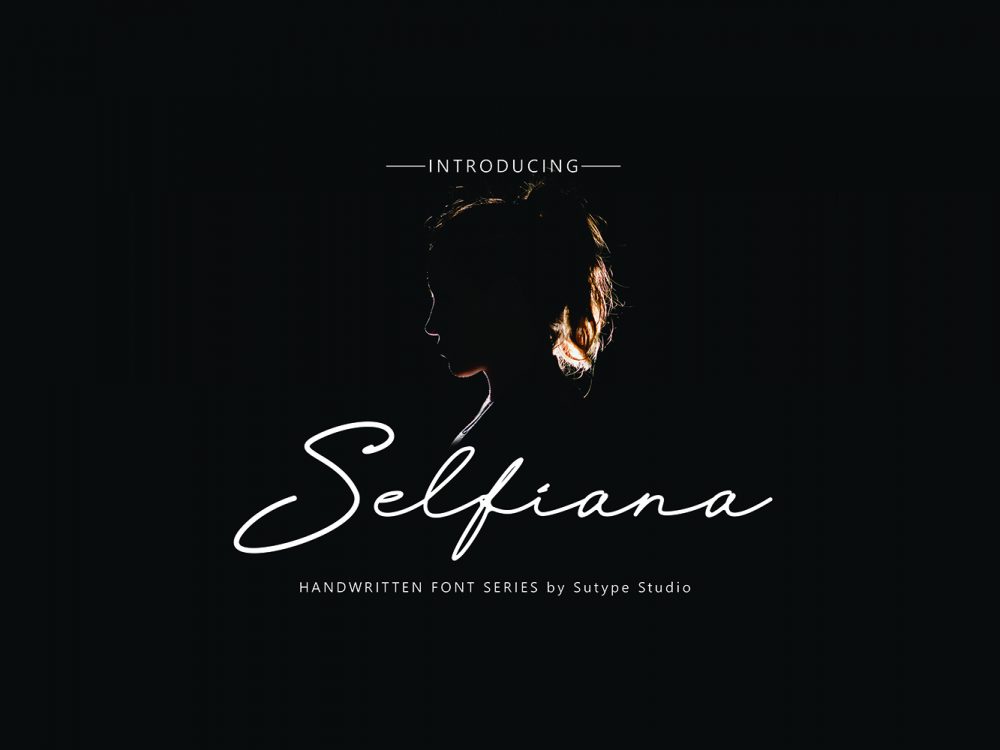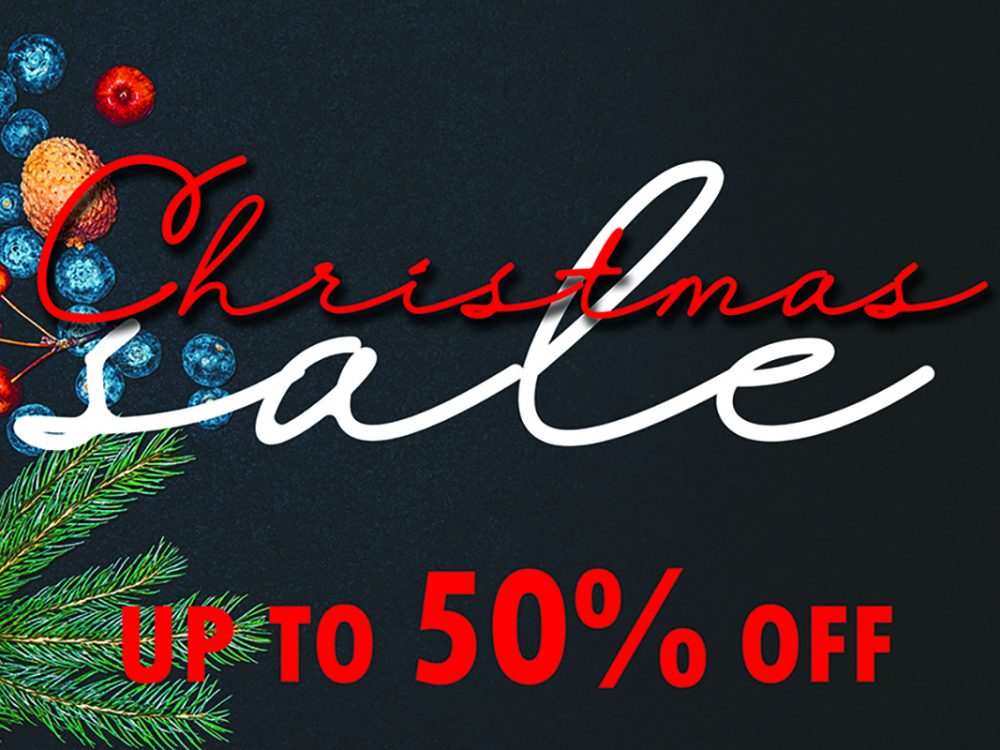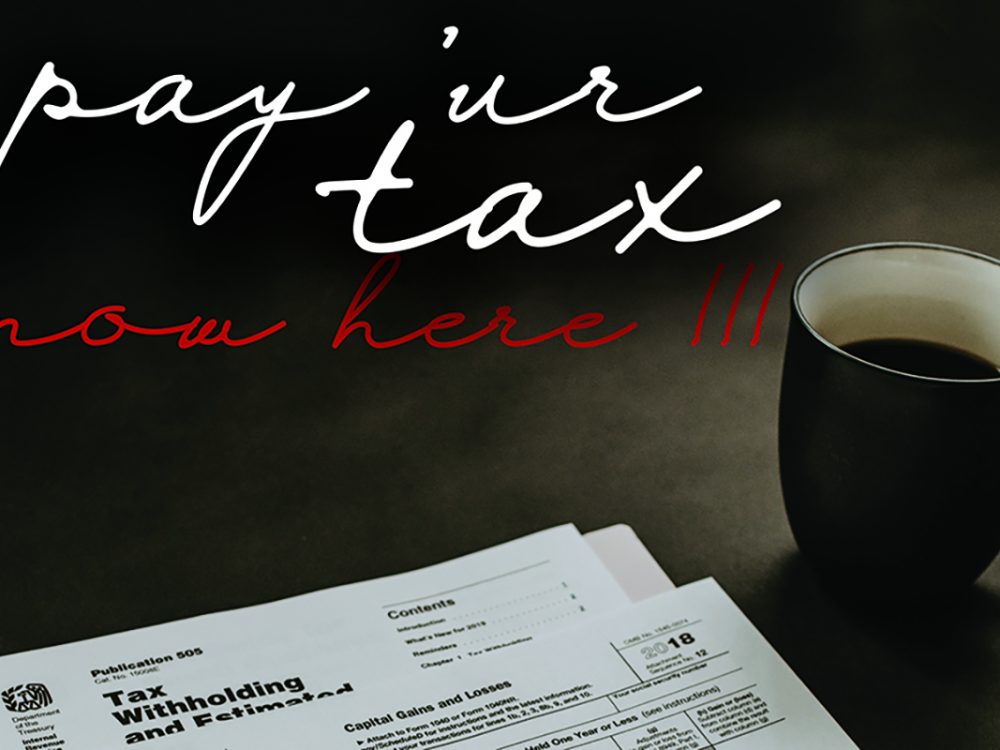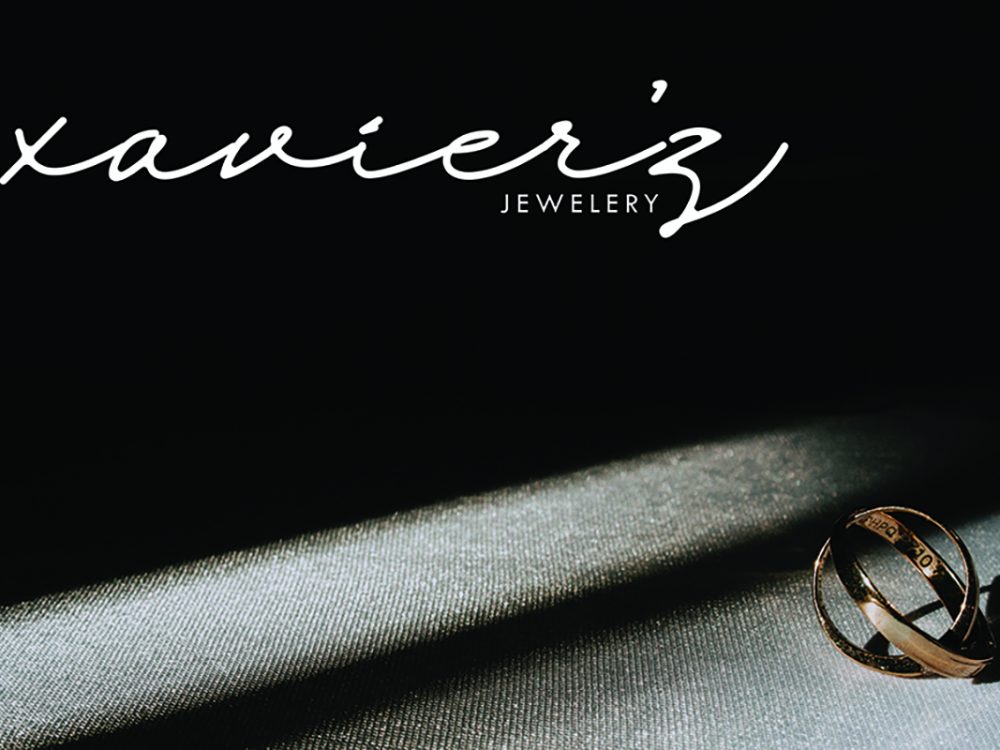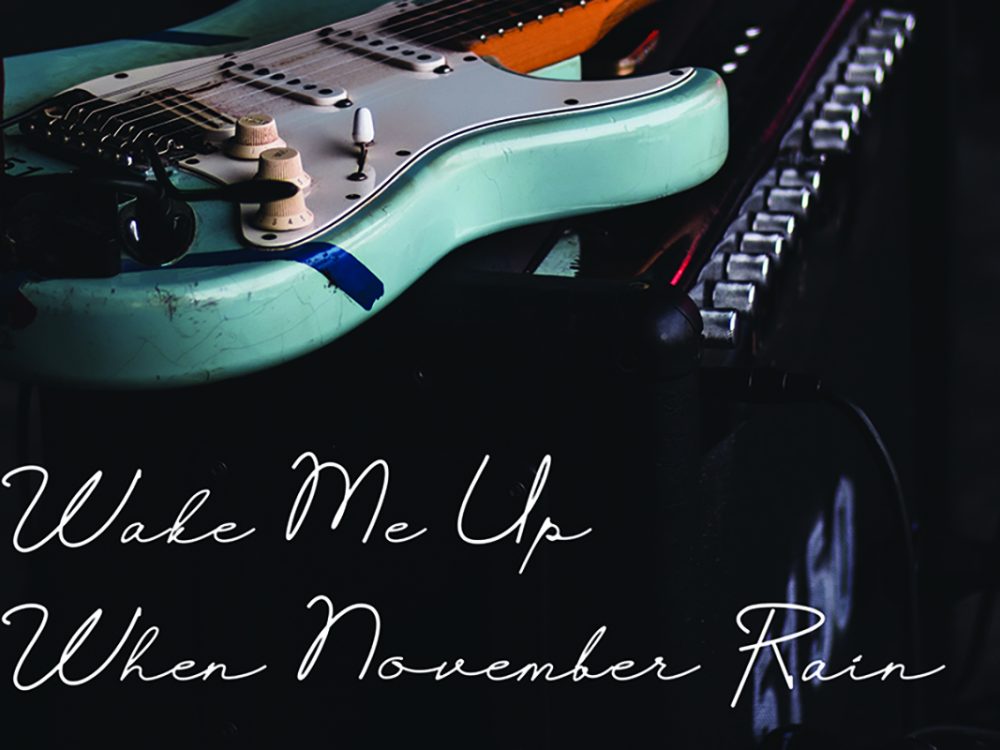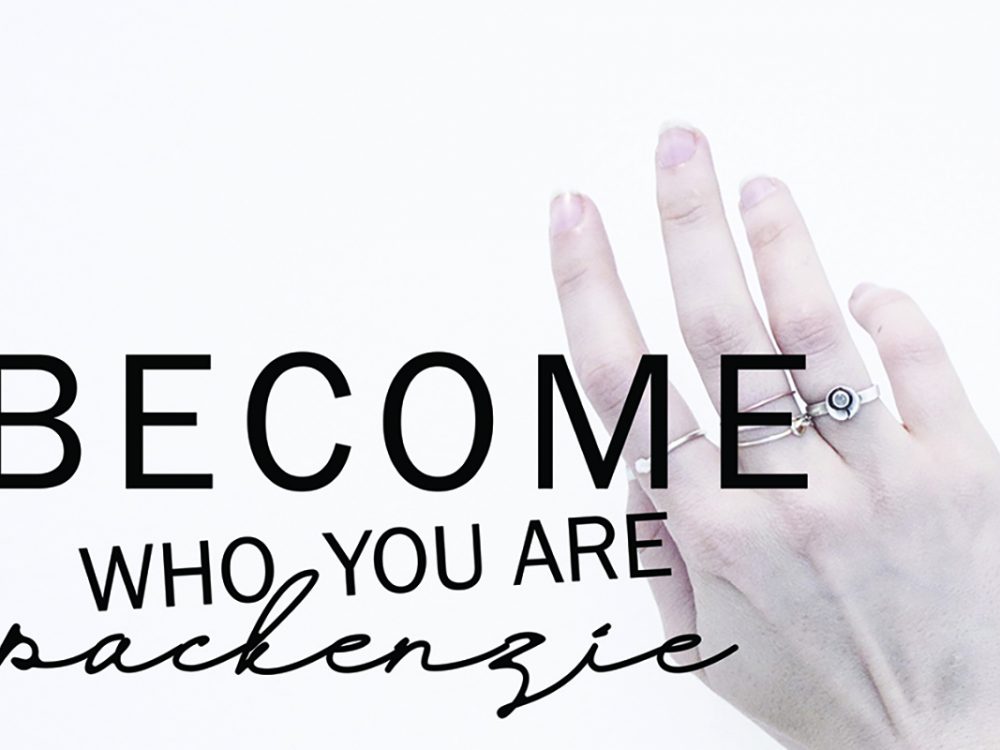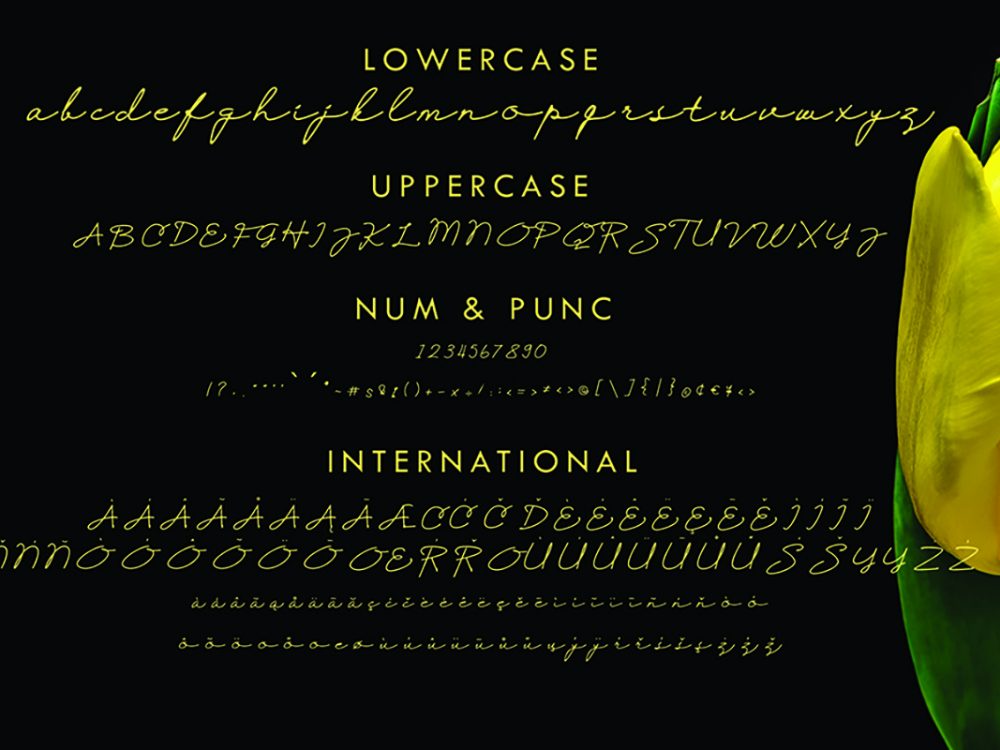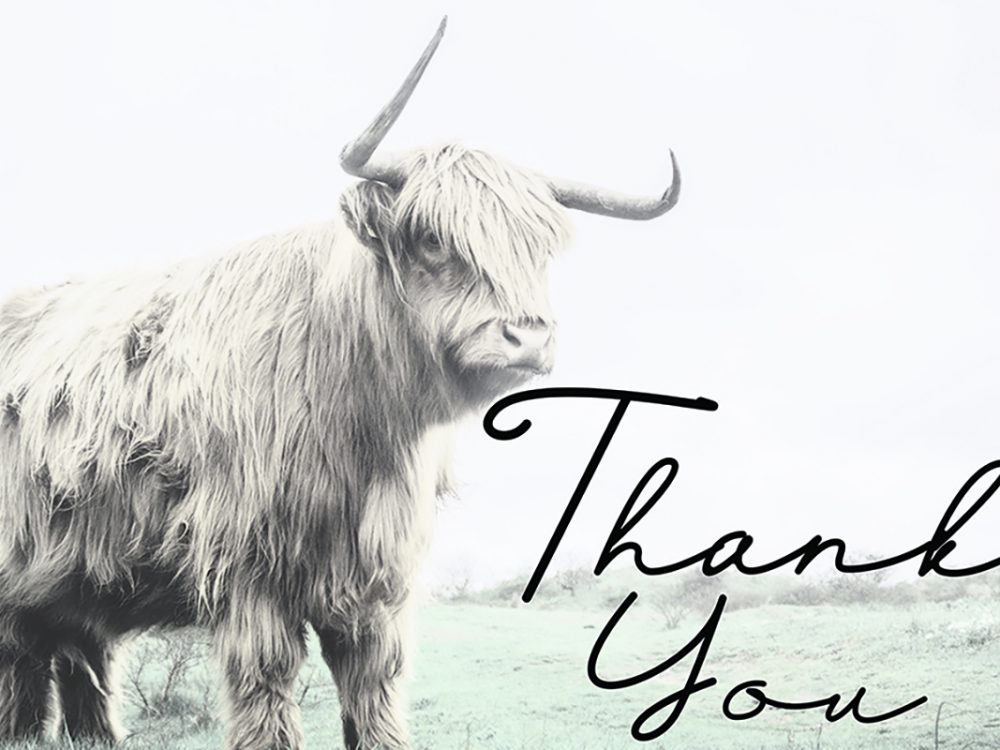
Selfiana Handwritten Font
Selfiana Handwritten Font is an interesting modern handwritten font that stands out with its elegant, stylish style. This font is very suitable for creating various design projects that require a scriptable, catchy font. This can be a poster, wedding invitations, cards, branding, flyers, prints, and more. If you wish to access more features and use them for commercial work please buy the full version.